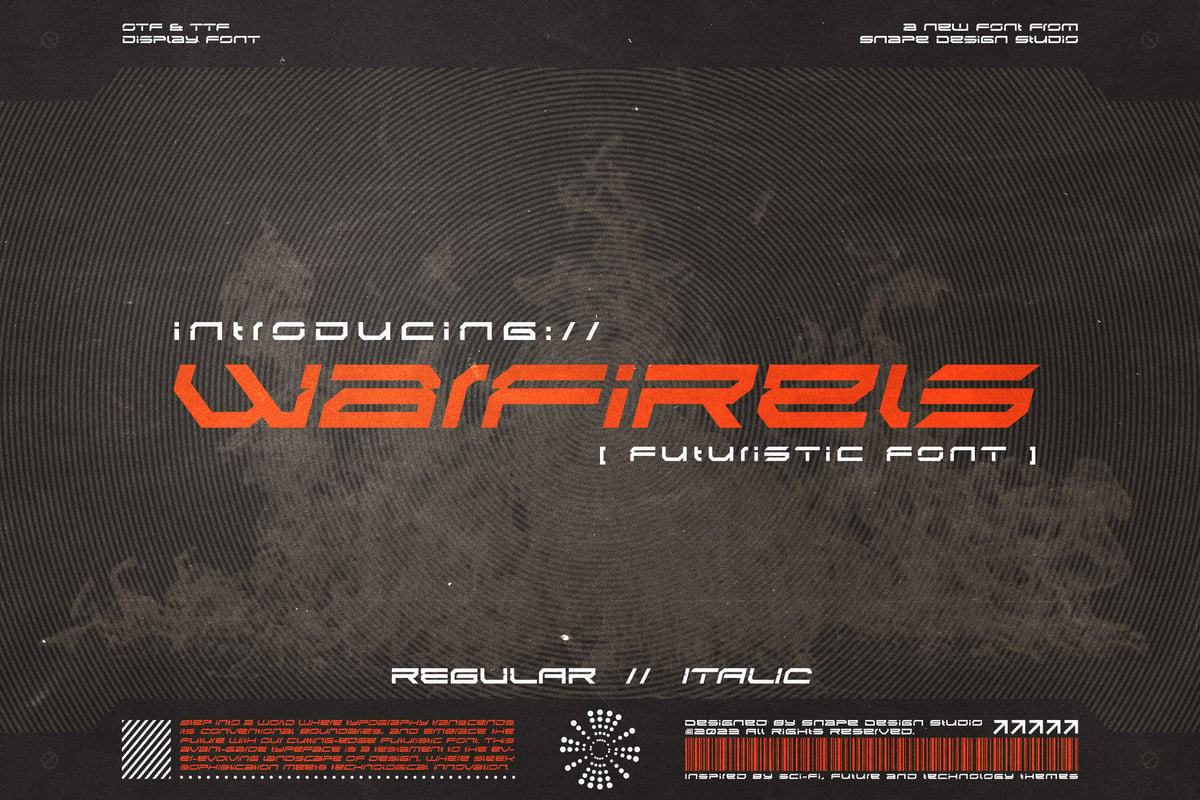
Warfirels - Futuristic Font
Transform your designs with cutting-edge typography that merges technology and artistry seamlessly. This innovative futuristic font collection redefines modern design standards, delivering sleek, dynamic, and visually compelling characters that command attention. Each letterform is meticulously crafted to embody the essence of tomorrow's typography. Ideal for sci-fi themed projects, technology branding, gaming interfaces, or any creative endeavor requiring a contemporary edge. The versatile char...